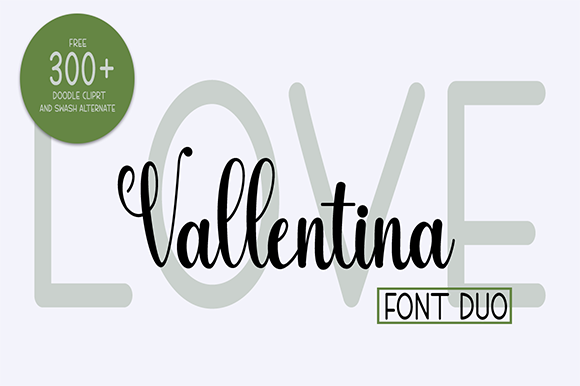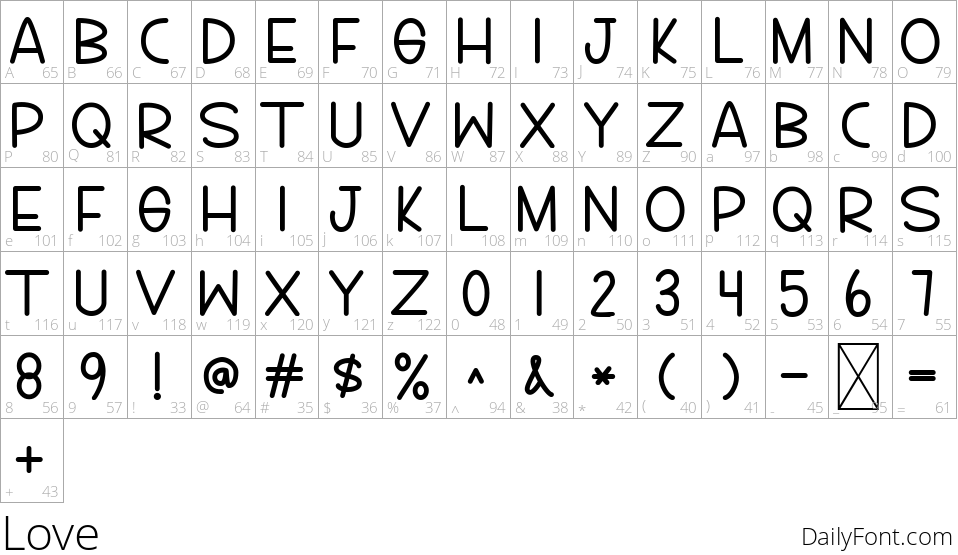
Love
Love Vallentina dazzles as a stunning duo font uniting elegant script with charming handwritten characters. Its letters gracefully dance along the baseline, adding a dynamic touch to any design. Exceptionally adaptable, these fonts complement diverse design styles, elevating them to unmatched sophistication.